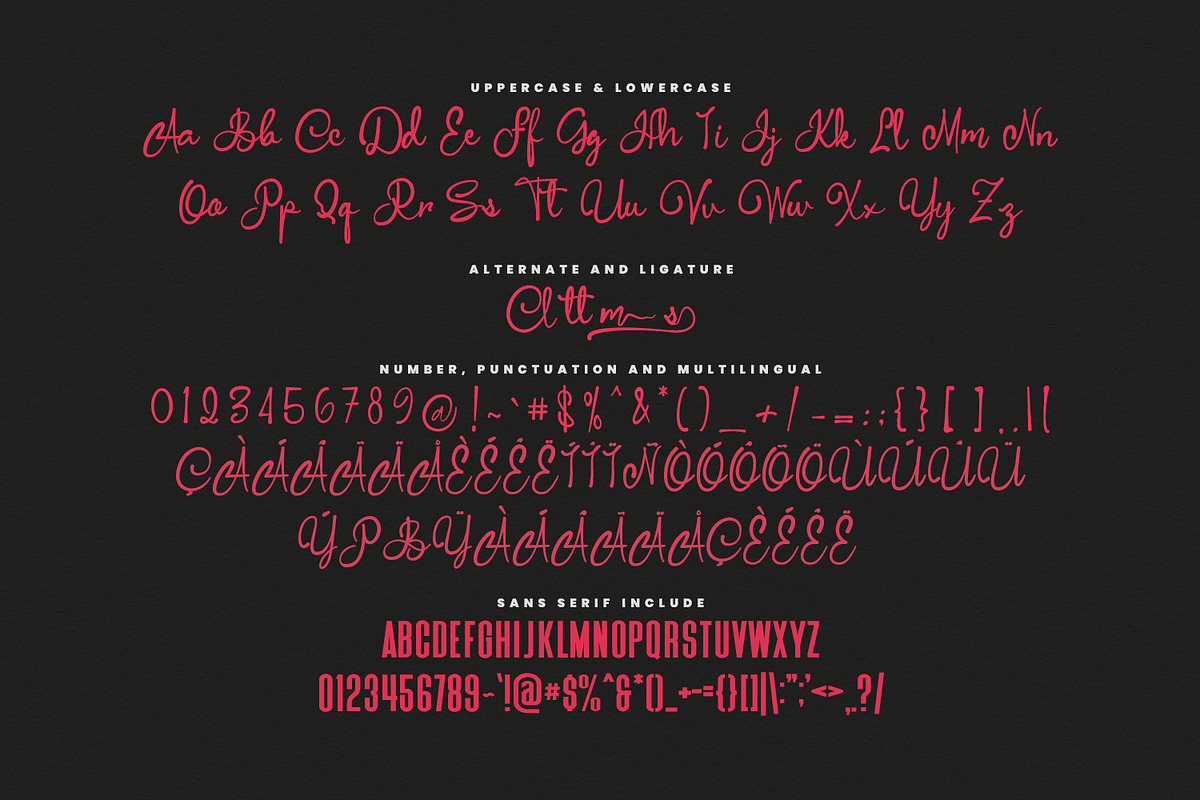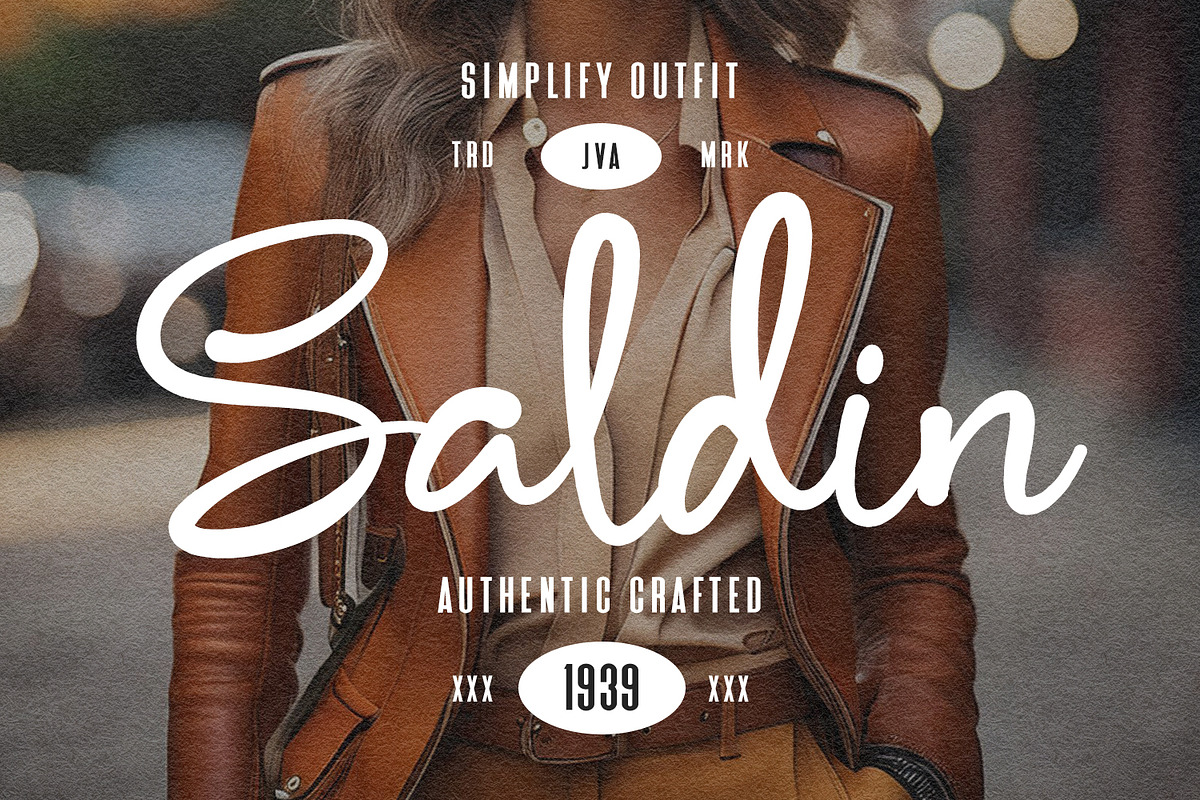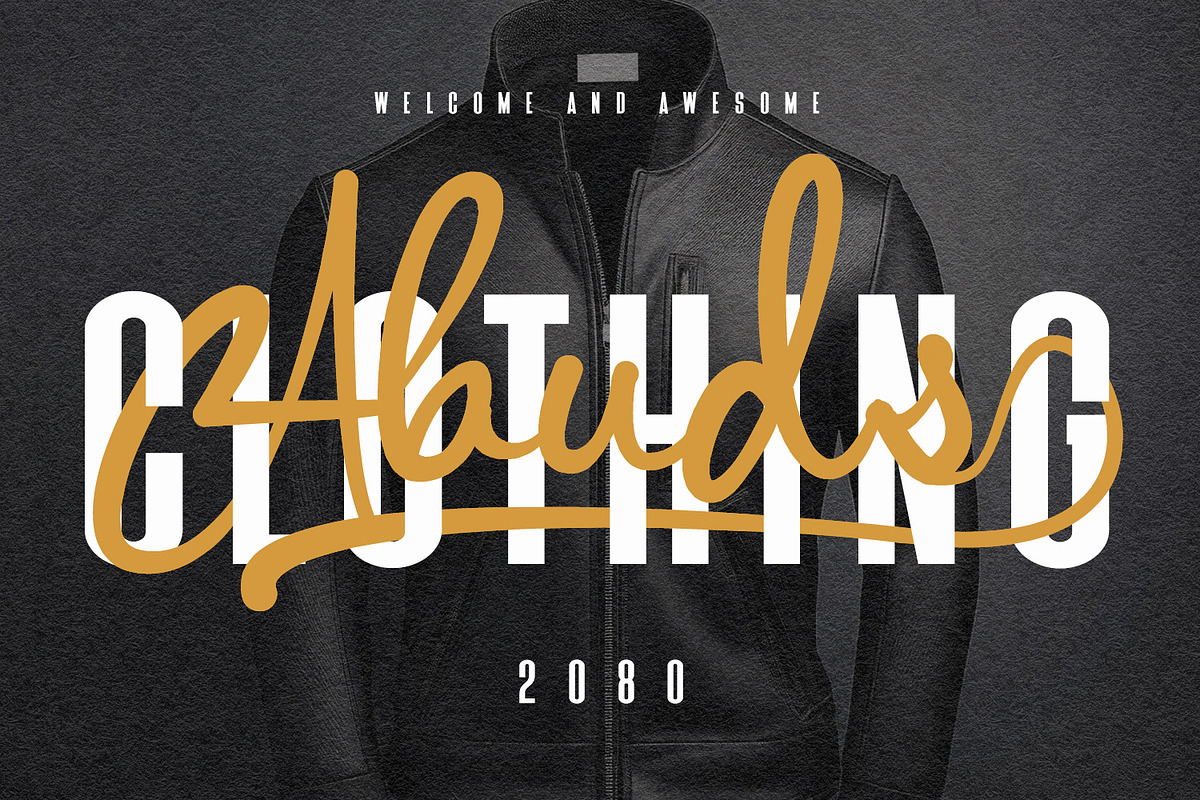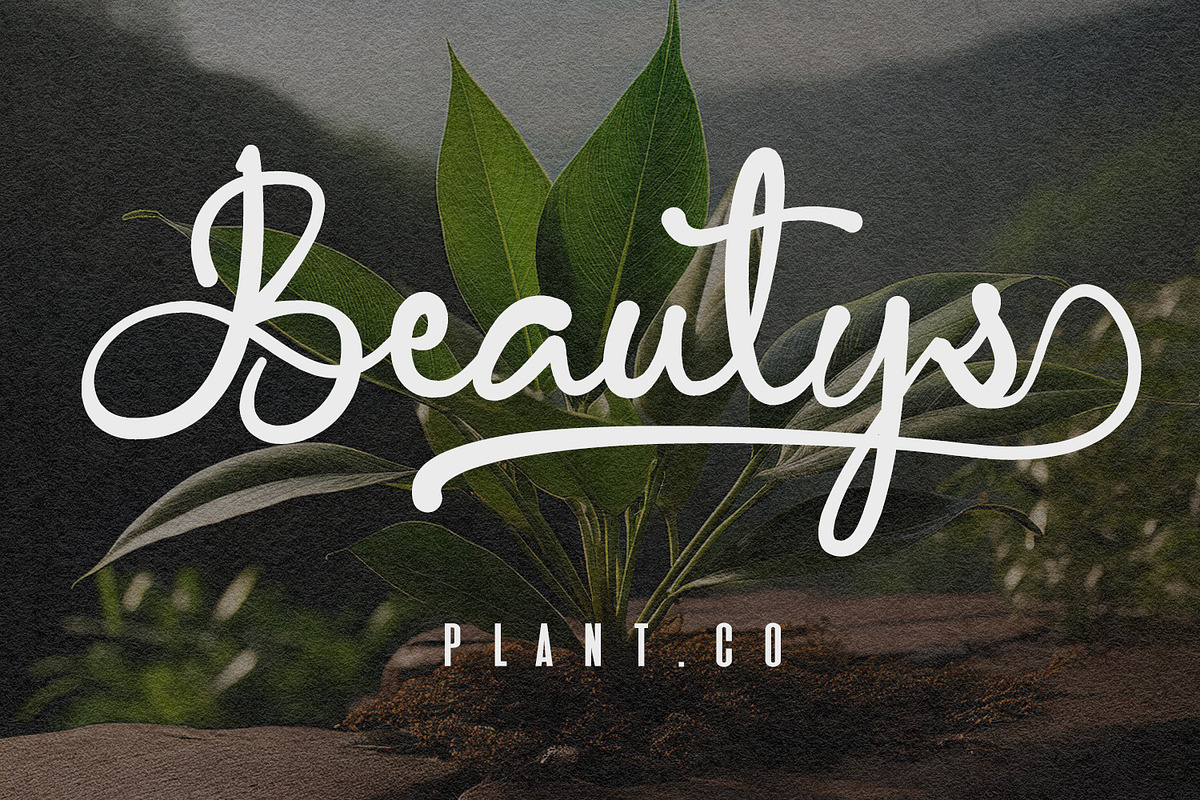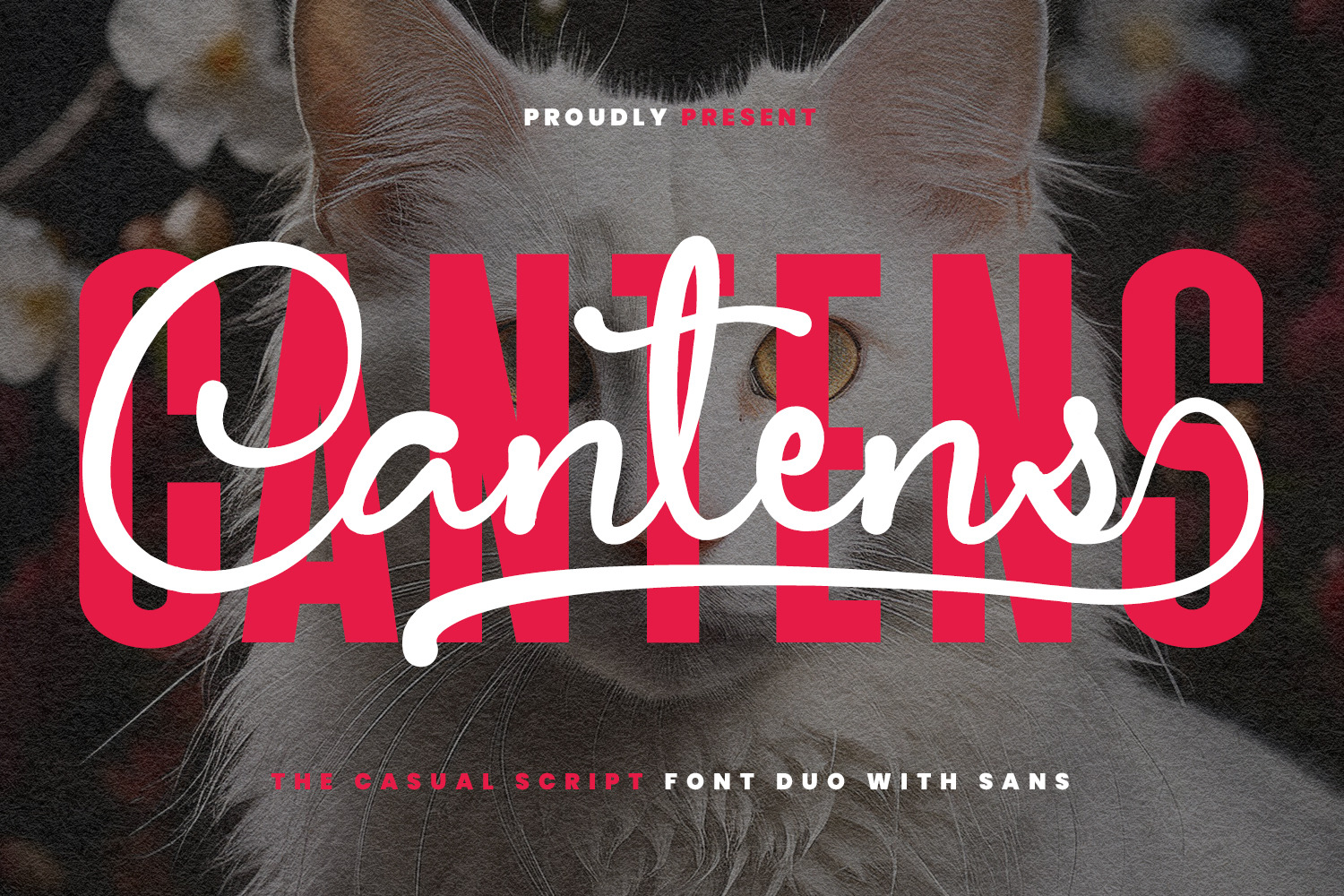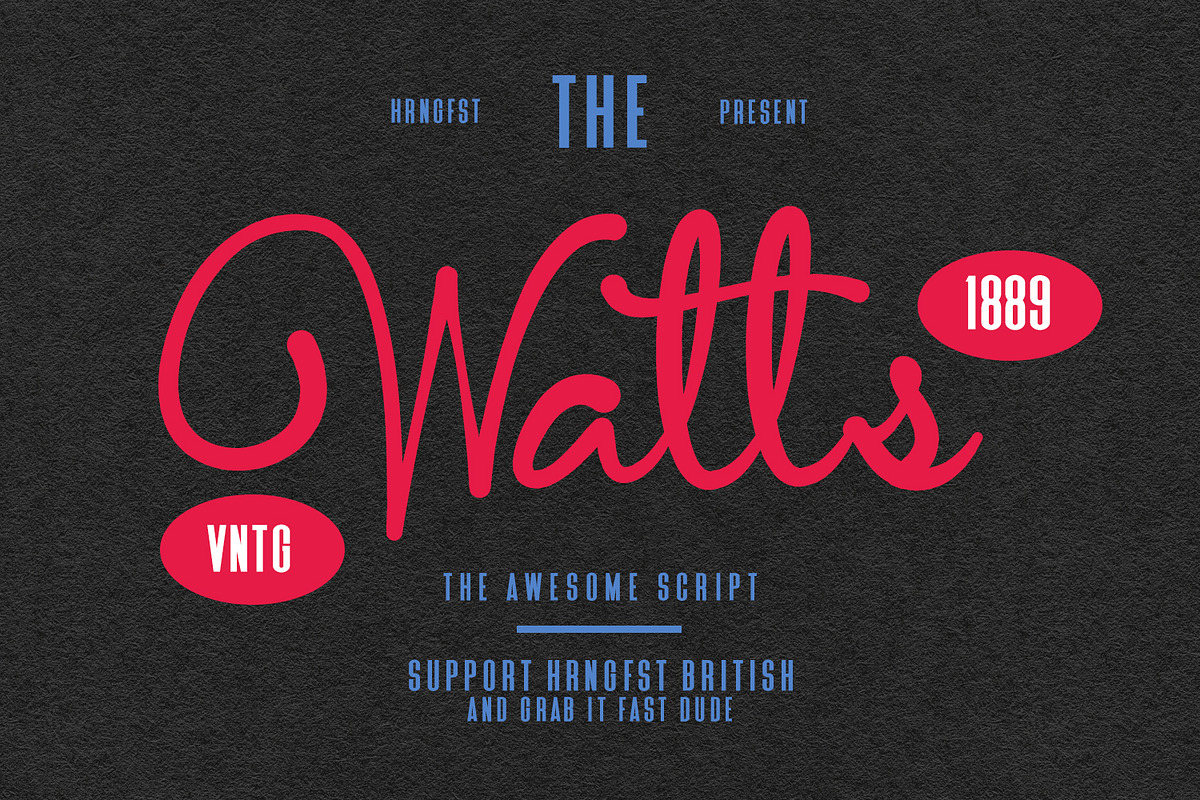
Cantens Casual Script Font Duo
Give your designs an authentic brush handcrafted feel. “Cantens Casual Script Font Duo” is perfectly suited to signature, stationery, logo, typography quotes, website header, branding and more.